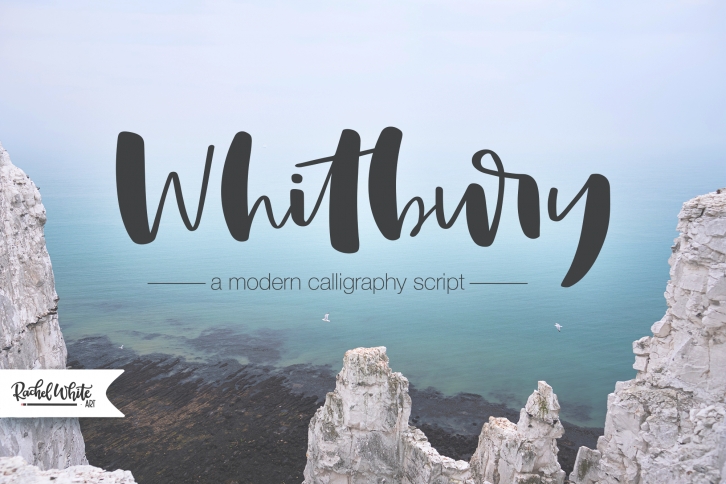
Whitbury, a modern calligraphy script is a great font that was designed by Rachel White Art. Imagine the amount of combinations you can create using this font! The archive is 6.82 MB and it was released on August 19, 2019. Whitbury, a modern calligraphy script looks beautiful on wedding invitations, greeting cards, logos, posters, labels, t-shirt designs, logos, business cards and is perfect for use in ink or watercolor works, fashion, magazines, packaging and food menus, children's books and more!